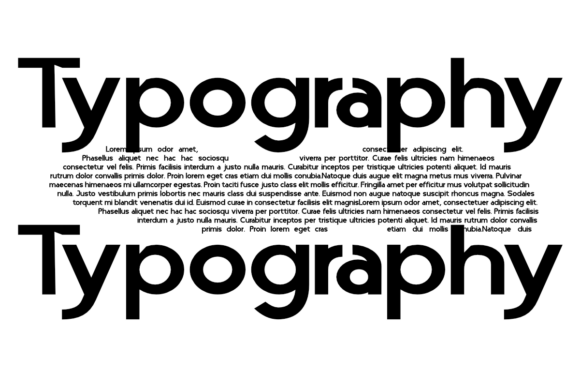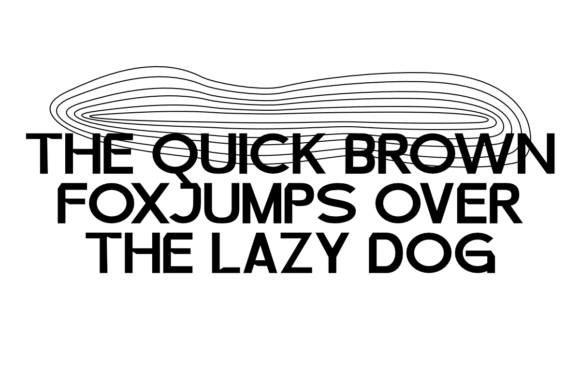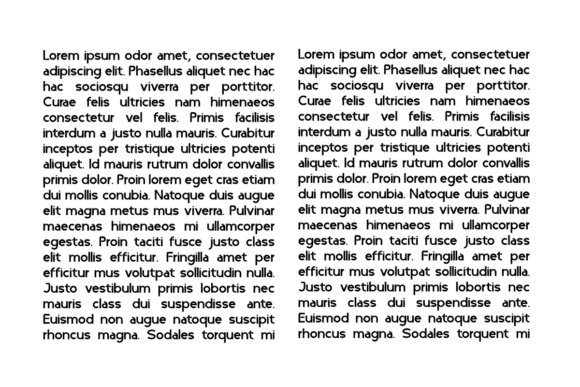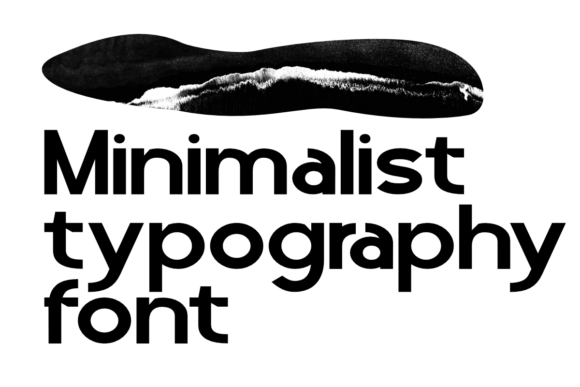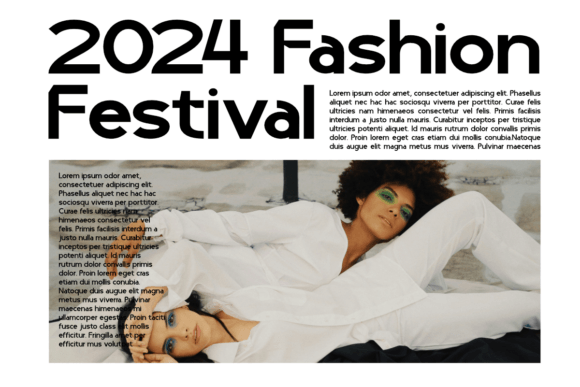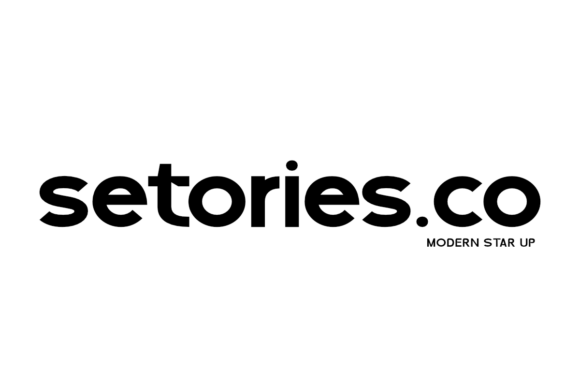
Introduction to Prestovia Font
Have you ever found yourself staring at a blank page, waiting for inspiration to strike? Maybe it’s a creative project that requires a touch of sophistication, or a design that demands elegance and refinement. As designers, we’ve all been there – searching for the perfect font to elevate our work and make it truly stand out. Enter Prestovia Font, a stunning typeface that embodies the essence of luxury and exclusivity.
Whether you’re working on a high-end branding project or crafting a formal invitation, Prestovia Font is the perfect design resource to help you achieve a clean, professional look. With its smooth lines, balanced letter proportions, and subtle artistic flair, this font is sure to make a lasting impression. And the best part? It’s available in multiple weights, making it a versatile choice for various design needs.
Key Features of Prestovia Font
- High-quality typography with a unique, elegant design suitable for various creative projects.
- Perfect for use in a variety of creative projects, including logos, branding, and editorial content.
- Includes a wide range of characters, including Latin and Cyrillic alphabets, making it suitable for multilingual designs.
Honest Review: Prestovia Font
I recently came across the Prestovia Font, and I must say it’s a great addition to any designer’s toolkit. As a creative professional, I’m always on the lookout for high-quality design resources that can elevate my projects.
The Prestovia Font is a free download, which is a major plus in my book. It’s not often that you come across a font of this quality that’s available for free. The font itself is versatile and works well in a variety of creative projects, from logos to marketing materials.
- High-quality design: The Prestovia Font is beautifully crafted and looks great in print and digital formats.
- Limited language support: The font may not support all languages, which could be a limitation for designers working on multilingual projects.
- No bold or italic versions: While the regular weight of the font is great, it would be nice to have bold and italic versions for added flexibility.
Overall, I’m impressed with the Prestovia Font. It’s a great addition to any designer’s toolkit, and its free download makes it an even more attractive option. While it has some limitations, I think it’s a great resource for designers looking for a high-quality font for their creative projects.
Prestovia Font
The Prestovia Font is a high-quality, free download design resource ideal for creative projects. Its transparent background makes it versatile for various applications.
Tips for Getting the Most Out of Prestovia Font
For optimal results, use the Prestovia Font on a clean and minimalistic background. This will allow the font’s unique design to take center stage.
The Prestovia Font is ideal for creative projects such as:
- Logos
Q: Does the Prestovia Font support a transparent background?
Yes, the Prestovia Font has a transparent background, making it ideal for designers who want to create high-quality designs with a seamless integration of text and images.